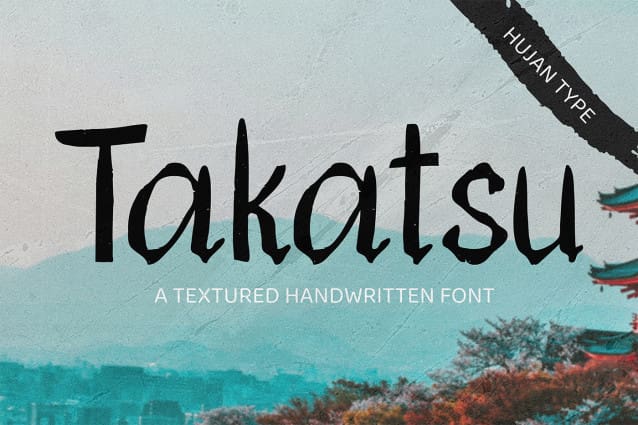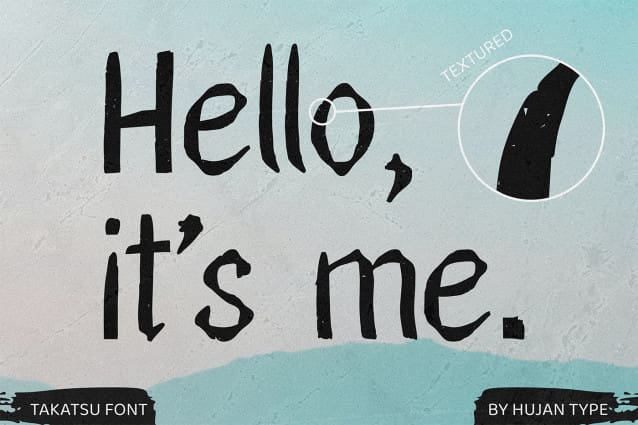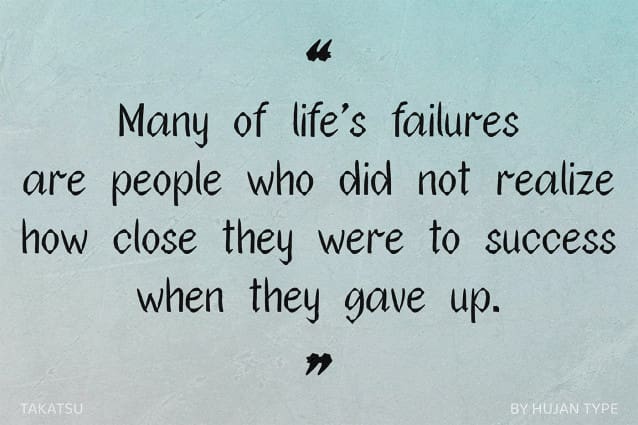
Takatsu Font
Takatsu Font is a sans serif handwritten font with textured. Takatsu is suitable for display poster, logo, product branding, or for text overlay to any background image.